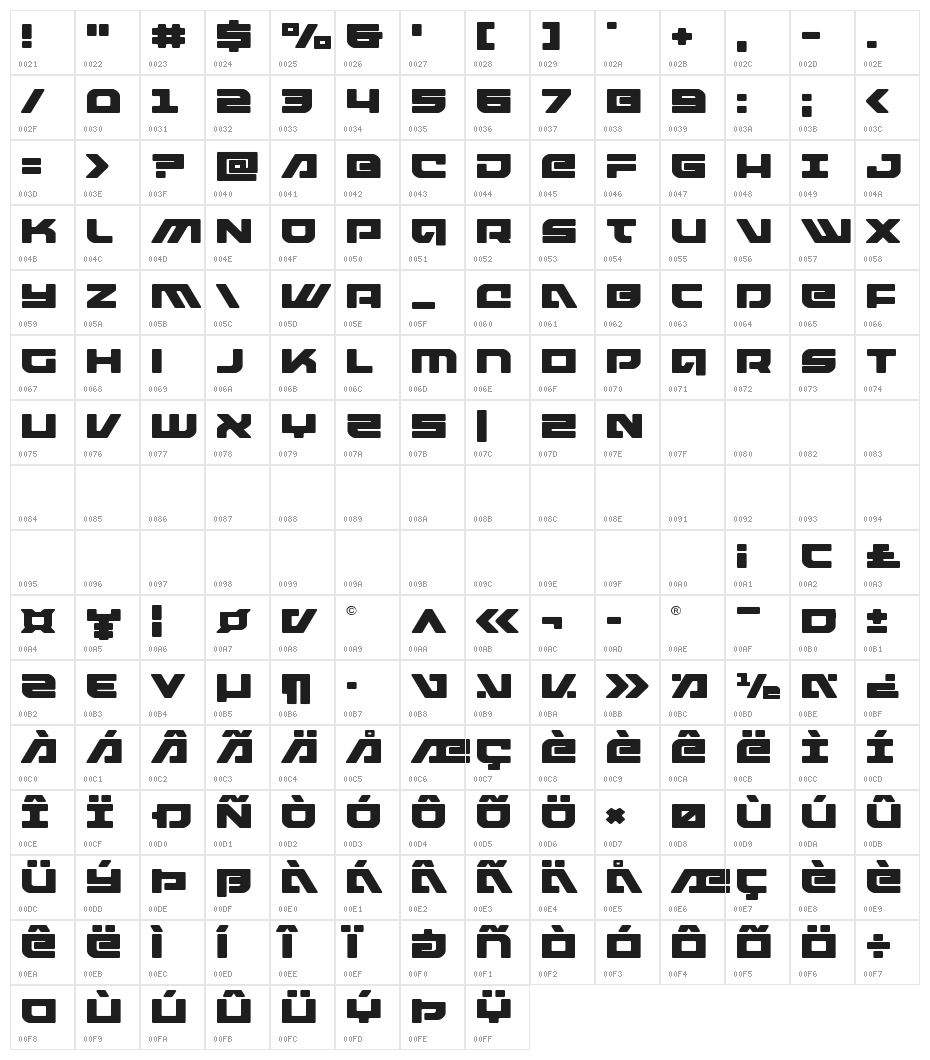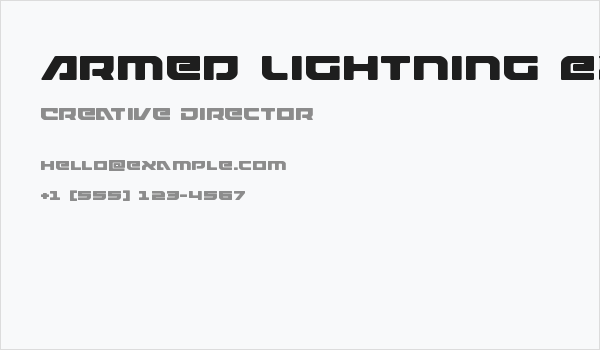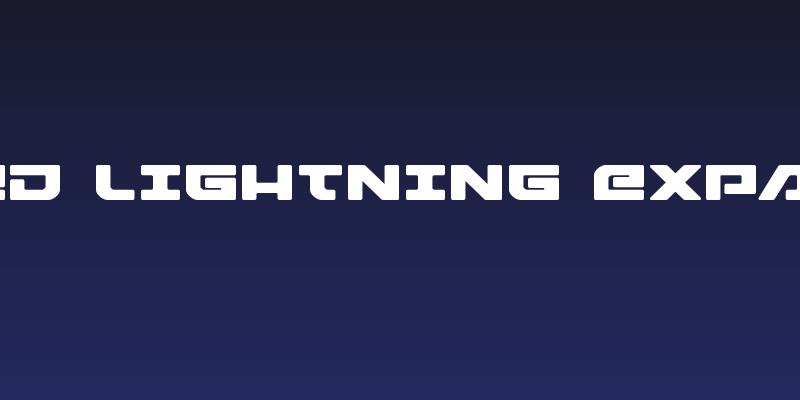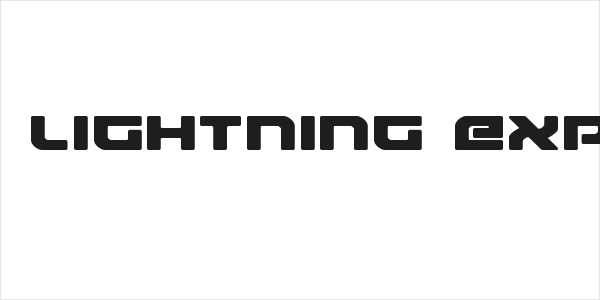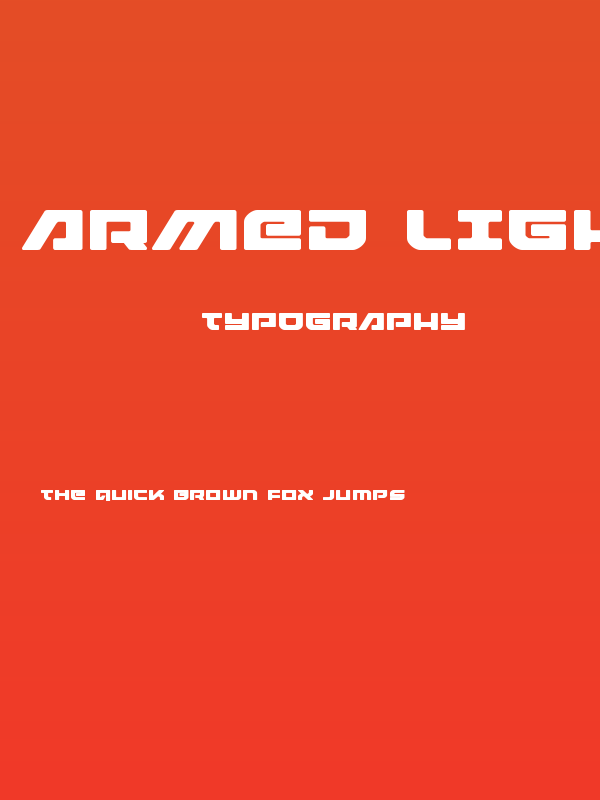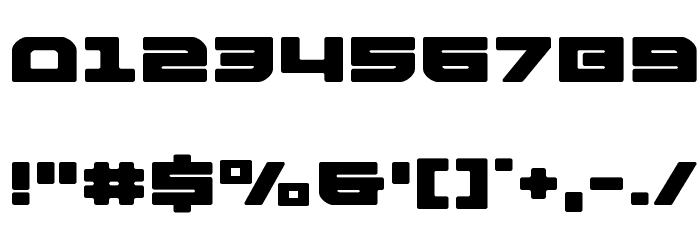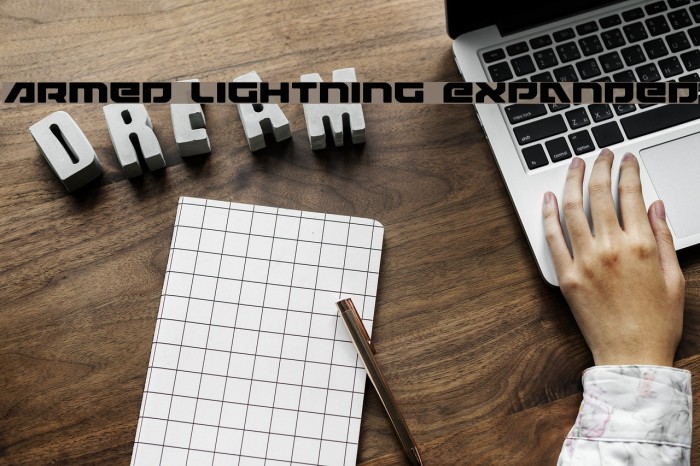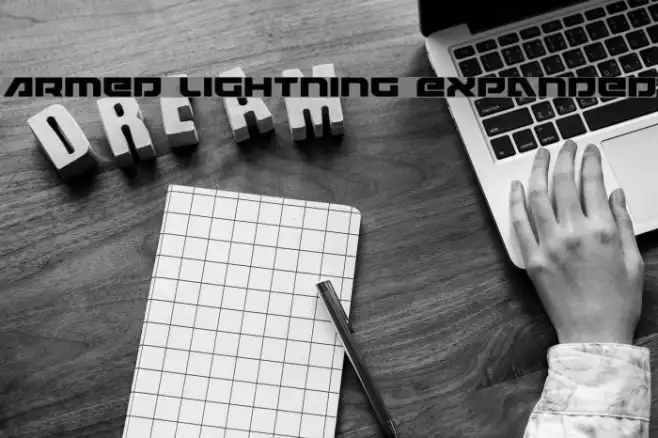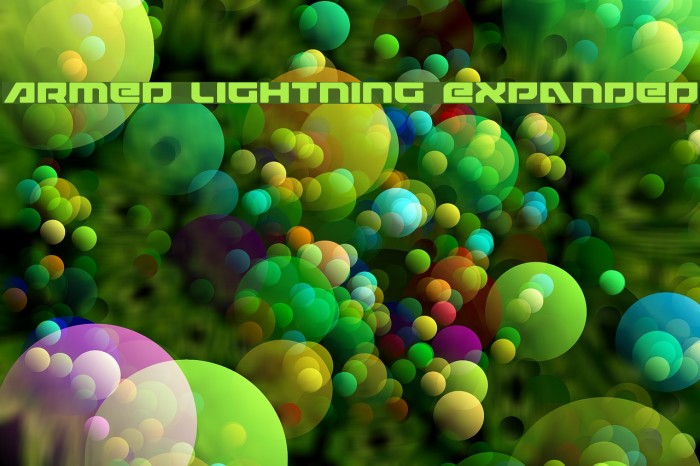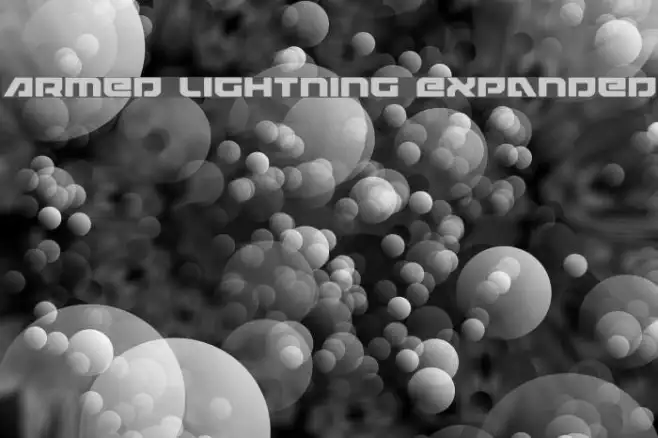
Armed Lightning Expanded Font
Armed Lightning Expanded Description
This font features a bold and futuristic design with a distinctly angular and geometric style. The characters are wide and expanded, giving a sense of strength and modernity. The uppercase letters are particularly striking, with sharp edges and a consistent thickness throughout. The lowercase letters maintain the same boldness, ensuring readability and impact. Numbers and special characters follow the same design principles, making them cohesive with the rest of the font. This font is ideal for projects that require a strong visual presence and a modern aesthetic.
| Proposed Projects | Ideal for technology branding, sci-fi movie posters, video game titles, and modern advertising campaigns. |